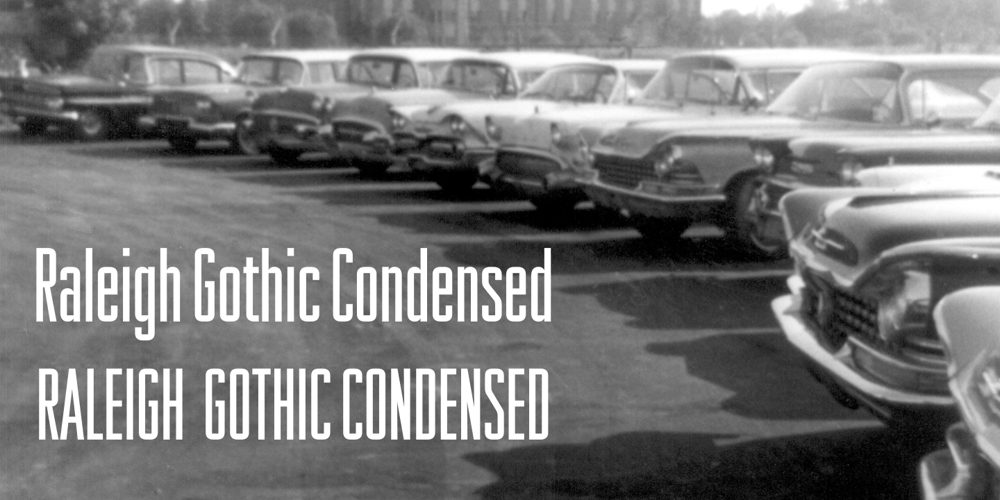
Raleigh Gothic Condensed Font Family was designed by Morris Fuller Benton and published by GroupType. Raleigh Gothic Condensed contains 4 styles and family package options. In 1932, the great American type designer, Morris Fuller Benton was busy directing the creative departments of ATF and designing type. Big on his plate during that period was the development of the Bank Gothic® family among other typefaces like Raleigh Gothic. Bank Gothic and Raleigh Gothic share some very similar design traits. The most obvious difference being the ultra condensed style of Raleigh Gothic. Although the Bank Gothic family was released with a condensed, Raleigh Gothic could have originally been planned as an ultra condensed Bank Gothic but for reasons we can only speculate, the Ultra Condensed Bank became its own design. So, If you like Bank Gothic, you may also like Raleigh Gothic. Separated at birth? Fun to speculate.